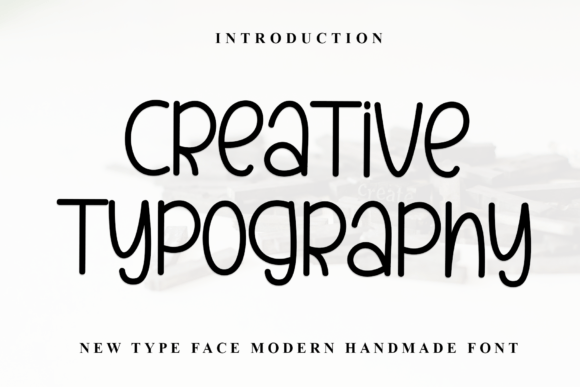
Creative Typography Font: Elevate Your Design with Elegance and Charm
Creative Typography is a stylish font that exudes elegance and charm, making it perfect for designers looking to add a personal touch to their creations. With its fluid strokes and natural flow, this font creates a captivating and sophisticated look that is sure to impress. In this article, we’ll explore the features and benefits of Creative Typography, and how it can elevate your design to the next level.
The Art of Typography: Why Creative Typography Stands Out
Typography is an essential element of design, playing a crucial role in communicating a message and evoking emotions. A well-crafted font can make all the difference in creating a lasting impression on your audience. Creative Typography is a masterclass in typographic design, boasting a unique blend of elegance and playfulness. Its fluid strokes and natural flow create a sense of movement, drawing the viewer’s eye through the text.
Key Features of Creative Typography Font
- Fluid Strokes: Creative Typography’s fluid strokes give the font a sense of dynamism and energy, making it perfect for designs that require a touch of sophistication.
- Natural Flow: The font’s natural flow creates a sense of continuity, making it easy to read and understand.
- Elegant and Charming: Creative Typography exudes elegance and charm, making it perfect for designs that require a touch of luxury and refinement.
- Versatile: This font is versatile and can be used for a wide range of design applications, from invitations and branding to social media and more.
Perfect for Adding a Personal Touch
Creative Typography is perfect for designers looking to add a personal touch to their creations. Whether you’re designing an invitation, a brand identity, or a social media post, this font brings a sense of warmth and creativity to any design. Its unique blend of elegance and playfulness makes it perfect for:
- Invitations: Add a touch of sophistication to your wedding invitations, event invitations, or any other special occasion.
- Branding: Create a lasting impression with your brand identity, using Creative Typography to convey elegance and refinement.
- Social Media: Elevate your social media posts with a touch of creativity and sophistication, making your content stand out in a crowded feed.
Tips for Using Creative Typography Font
To get the most out of Creative Typography, here are some tips to keep in mind:
- Use it sparingly: While Creative Typography is a beautiful font, it’s best used sparingly to avoid overwhelming the reader.
- Experiment with sizes: Play around with different font sizes to create visual interest and hierarchy.
- Pair it with other fonts: Combine Creative Typography with other fonts to create a unique and visually appealing typographic combination.
The Benefits of Using Creative Typography Font
By incorporating Creative Typography into your design, you can:
- Elevate your brand: Convey elegance and refinement with a font that exudes sophistication.
- Stand out: Create a lasting impression with a unique and captivating font that sets you apart.
- Enhance readability: Improve readability with a font that flows naturally and is easy to read.
Creative Typography is a stylish font that brings a sense of elegance and charm to any design. With its fluid strokes and natural flow, this font creates a captivating and sophisticated look that’s perfect for designers looking to add a personal touch to their creations. Whether you’re designing an invitation, a brand identity, or a social media post, Creative Typography is the perfect choice for elevating your design to the next level.